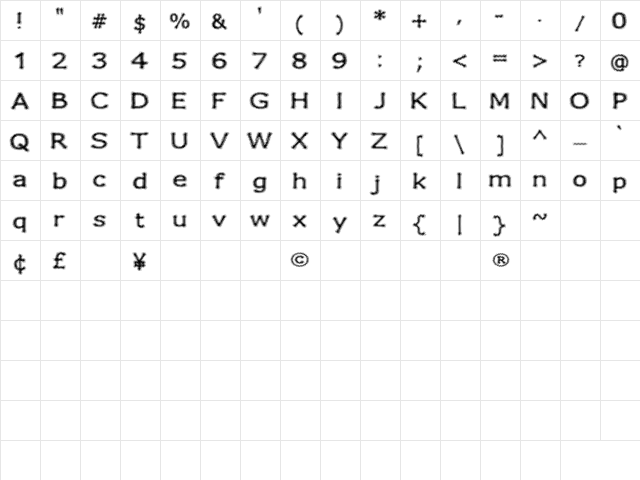
Fuzzy Xmas Regular
Design Context for Fuzzy Xmas Typeface
Fuzzy Xmas offers clean, dependable letterforms without strong stylistic allegiance, making it a practical choice for designers who need flexibility.